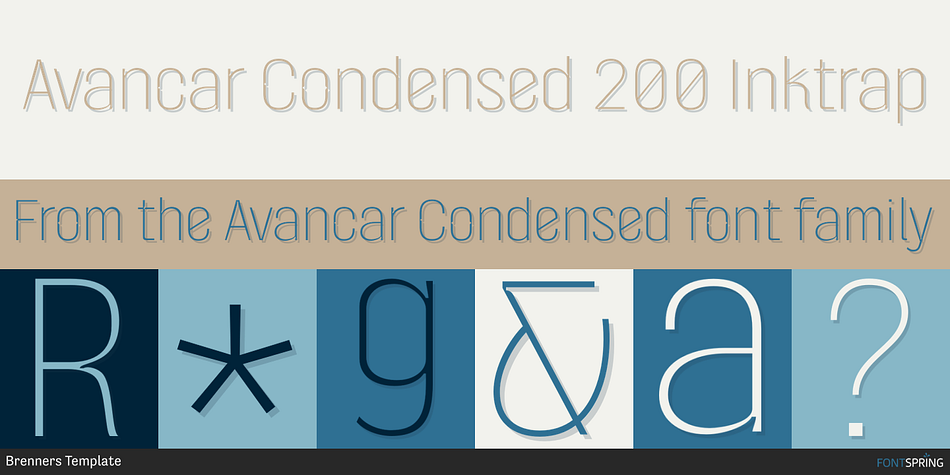
Avancar Condensed 200 Inktrap
Avancar Condensed is a display sans and sans serif font family. This typeface has eighteen styles and was published by Brenners Template.
Avancar Condensed Font Family
Avancar Condensed Font Family showcases the exquisite pairing of modern grotesque style and soft sans-serif design. These conjunctions provide the effect of owning two subfamily typefaces and are an amazing solution for designers. The main feature of this font family is a semi-condensed design with a slightly higher x-height. And, while having the same skeleton design and stem width, they provide a completely different look and feel.
Style 200 Inktrap